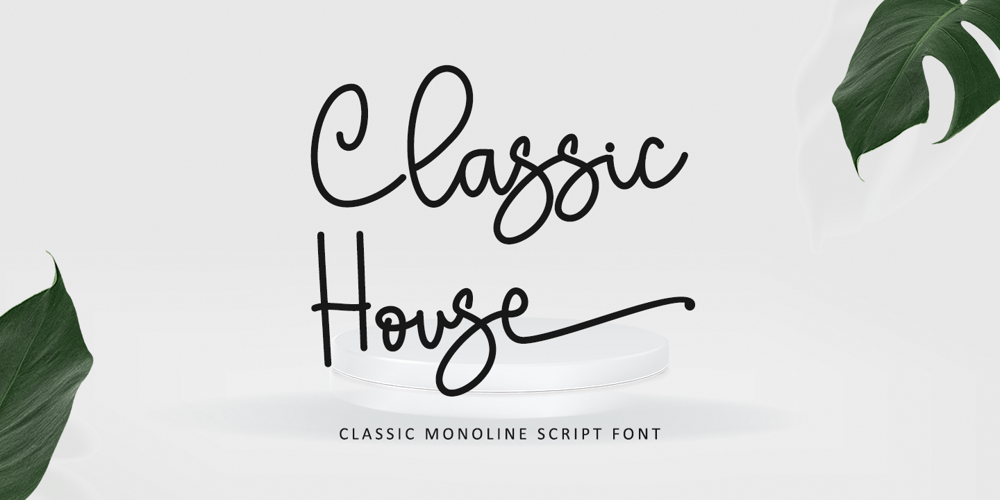
Classic House Font Family was designed by Thomas Aradea and published by Letterara. Classic House contains 2 styles and family package options. Classic House is a beautiful monoline font. It is the best choice for creating eye-catching logos, branding, and quotes. Every letter has a unique and beautiful touch, making your design come alive! This font is PUA encoded, meaning you can access all of the glyphs.